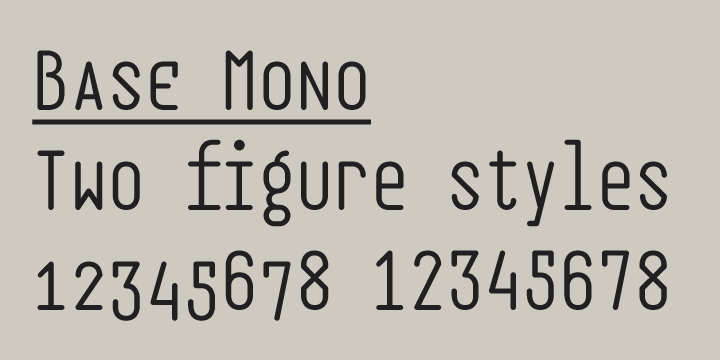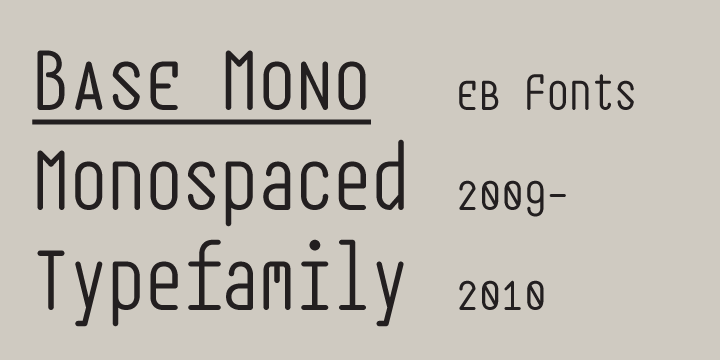
EB Base Mono
Font Family by Fenotype
Not your average monospaced typeface, Base Mono flourishes with several handsome OT features mostly found exclusively in text fonts. Despite the geometric and techno feel of the initial roman version, the cursive version is heavily influenced by traditional Finnish weaving and folk art! The contradiction is taken further by inclusion of such classical features as small capitals and lower case figures, usually found in slightly more traditional fonts. Base Mono family suits many editorial, corporate identity and logotype tasks. It can even be used for setting text such as captions and headlines.